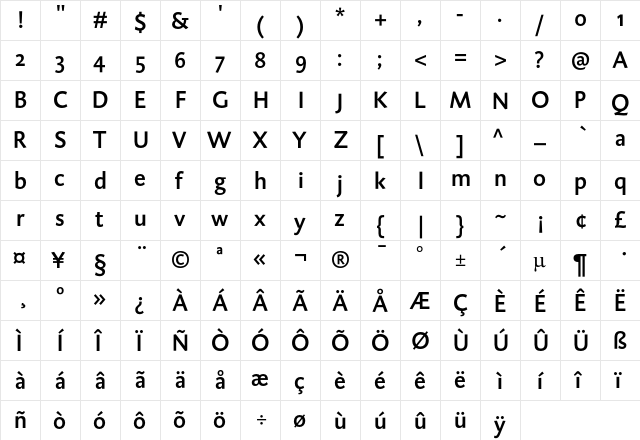
DTL Caspari ST Medium
Design Context for DTL Caspari Typeface
DTL Caspari offers clean, dependable letterforms without strong stylistic allegiance, making it a practical choice for designers who need flexibility.
Pro Tip: Pair DTL Caspari with a font of contrasting weight or personality to build a more expressive typographic hierarchy.